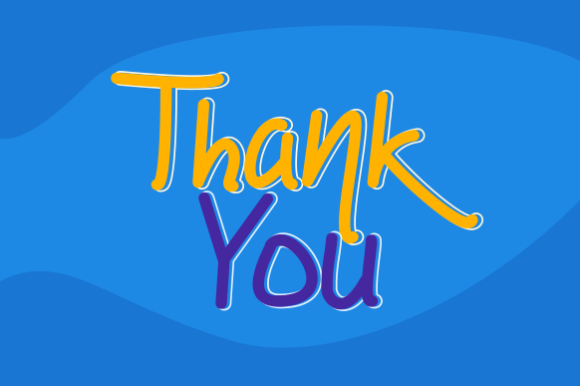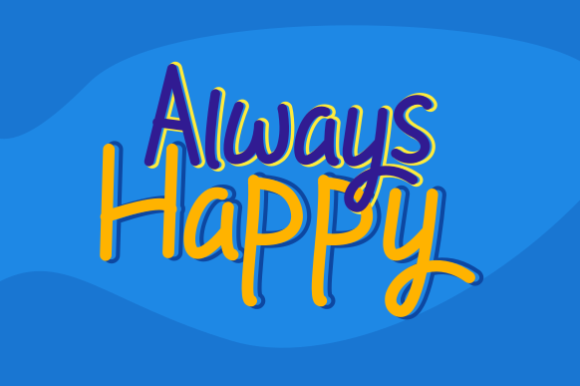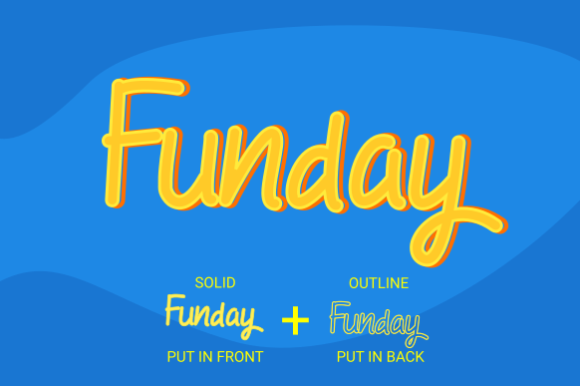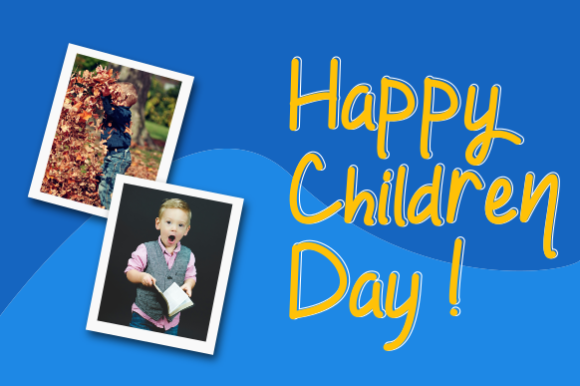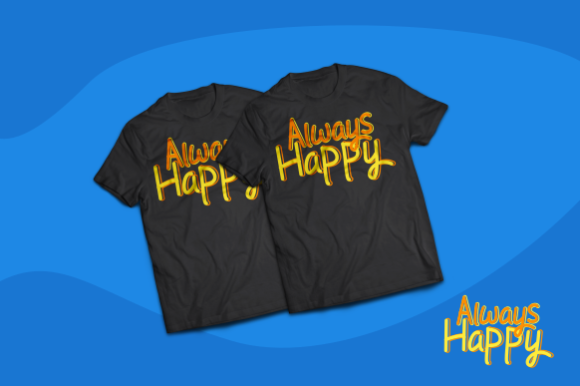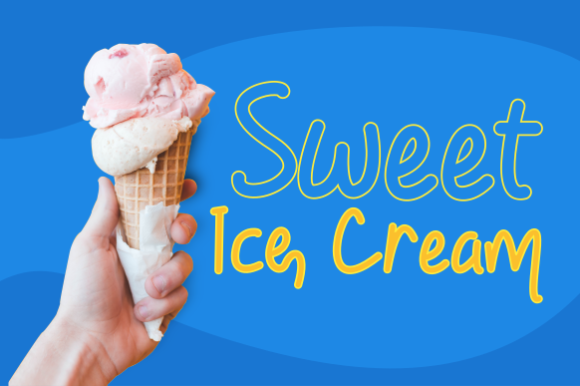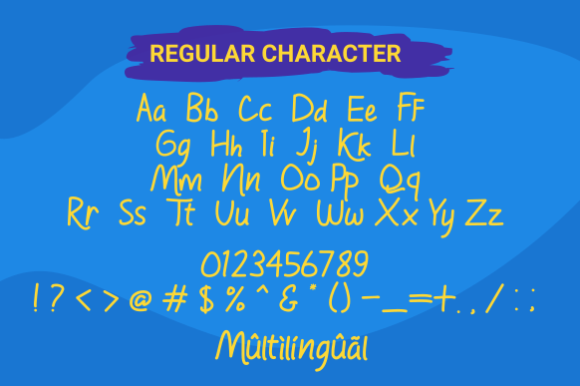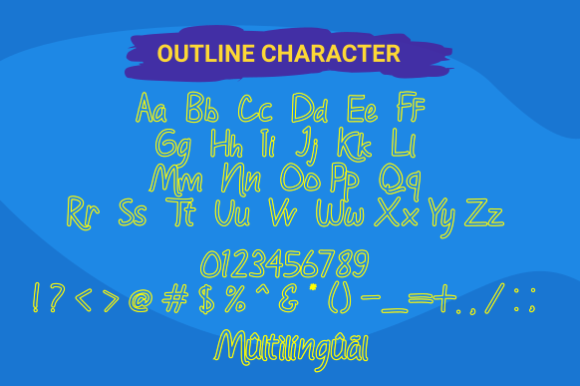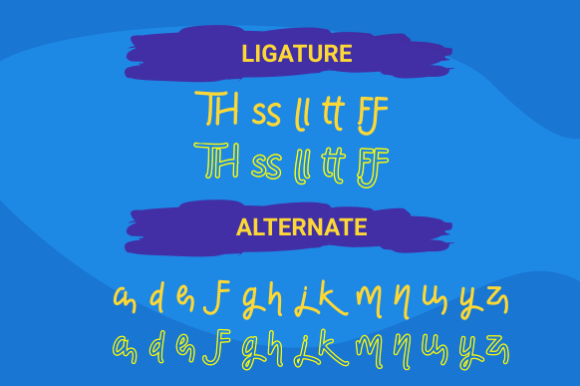
Holiday Funday Font
About Holiday Funday Font
Holiday Funday is a fun handwritten font with a whimsical twist. Use it to add a joyful feel to any creative project!